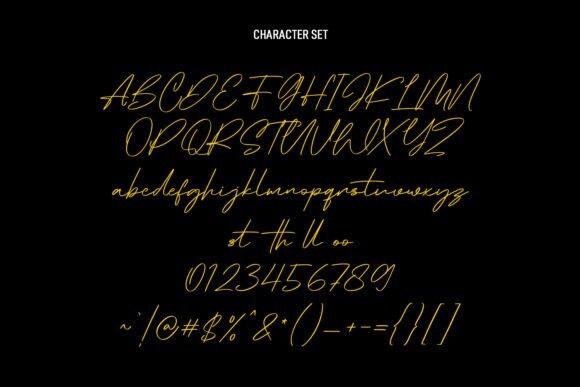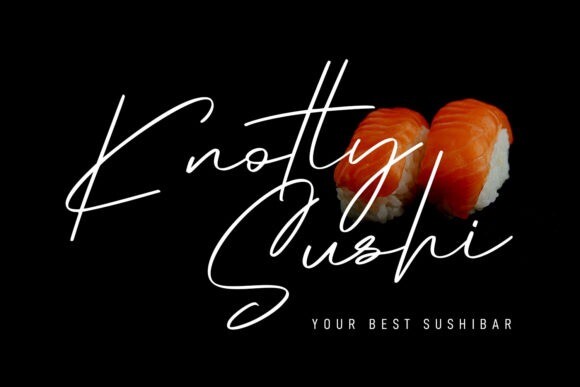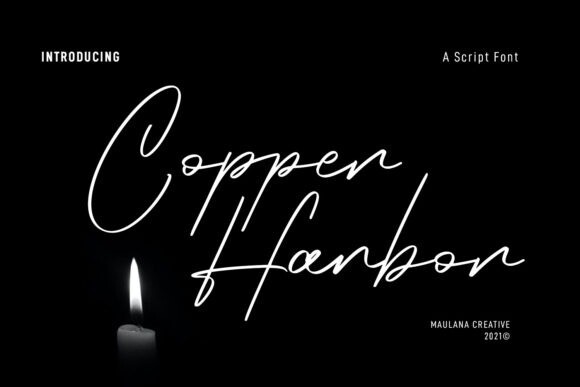
Copper Harbor Font
Copper Harbor Font is a stylish handwritten font. It is the best choice for creating eye catching logos, branding and quotes. Every letter has a unique and beautiful touch, which will make your design come alive!